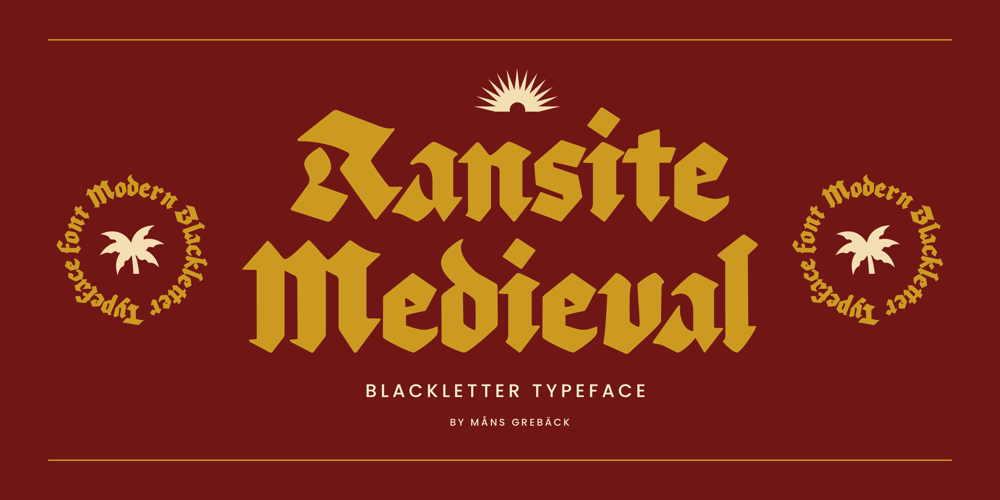
Ransite Medieval
Ransite Medieval font
Ransite Medieval Font Family was designed by Måns Grebäck and published by Mans Greback. Ransite Medieval contains 4 styles and family package options. Ransite Medieval is a bold blackletter typeface. Put together and refined by Mans Greback in 2022, this Old-English style lettering is drawn based on studies of multiple historical documents and typographic resources. With black calligraphy strokes, this heavy middle ages typeface is decorative but clean and clear. Ransite Medieval is provided in four styles:Regular, Bold, Italic and Bold ItalicUse it for a logotype or in a medieval context where you want a genuine, yet legible, typography.The font is built with OpenType functionality and has a guaranteed top-notch quality.It has extensive lingual support, covering all Latin-based languages, from North Europa to South Africa, from America to South-East Asia. It contains all characters and symbols you’ll ever need, including all punctuation and numbers.